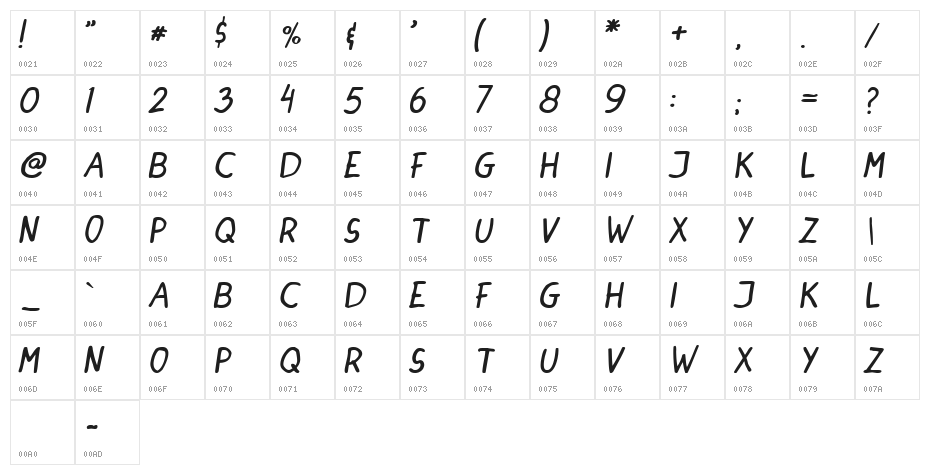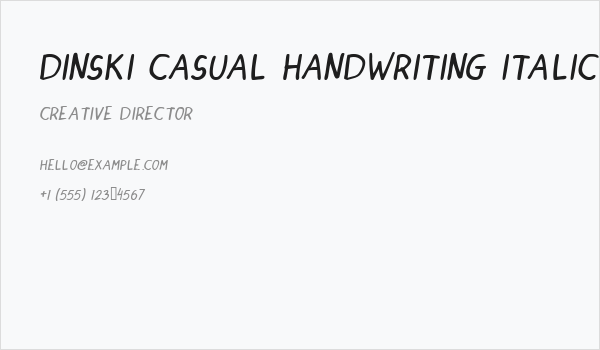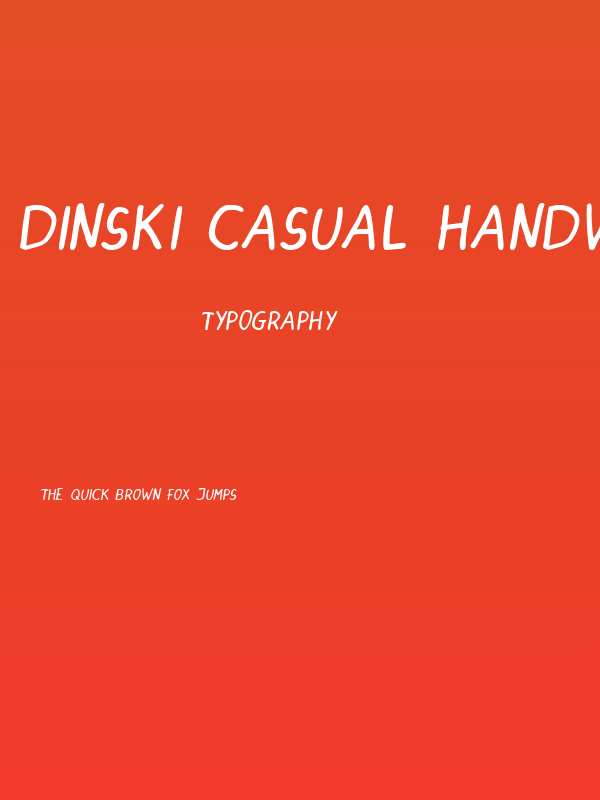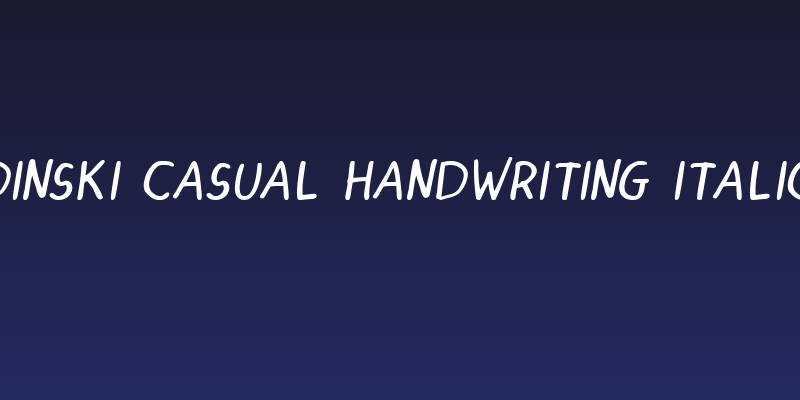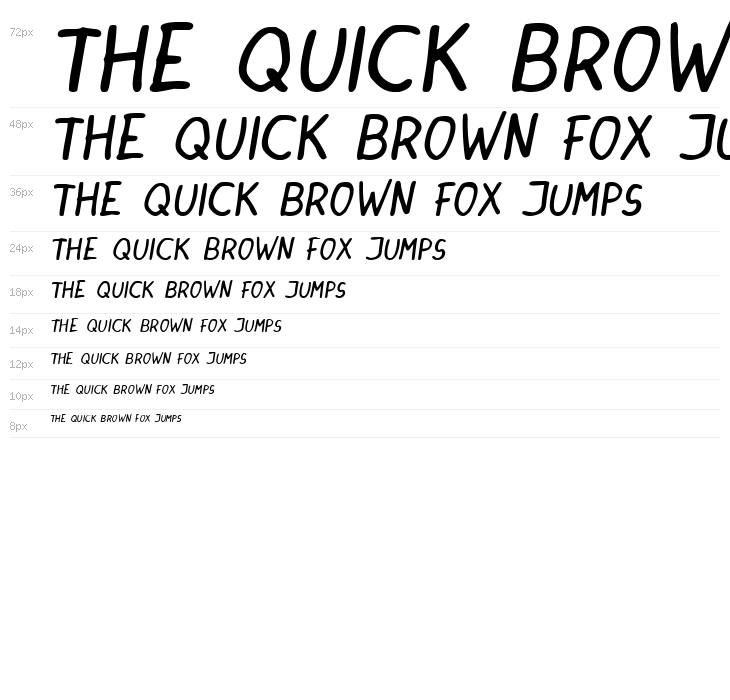
DINSKI CASUAL HANDWRITING Italic Font
DINSKI CASUAL HANDWRITING Italic Description
This font exudes a casual and approachable vibe with its handwritten style. The letters are slightly slanted, giving it an italicized appearance that adds a sense of movement and fluidity. The strokes are smooth and consistent, with rounded edges that enhance its friendly and informal character. The font maintains a uniform weight throughout, ensuring readability while retaining its playful nature. The spacing between characters is balanced, neither too tight nor too wide, making it suitable for various applications where a personal touch is desired.
Overall StyleCasual
Use CaseLogos, Headlines, Informal text
Proposed ProjectsIdeal for personal notes, invitations, greeting cards, and informal branding projects.